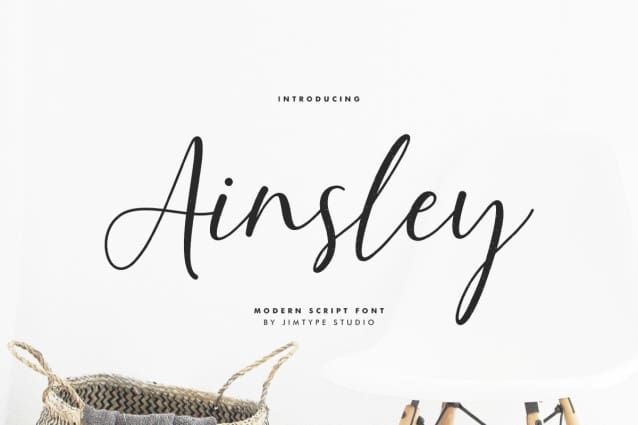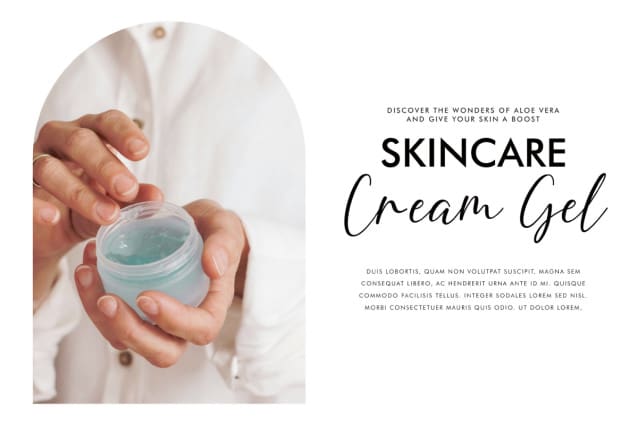
Ainsley Script Font
Ainsley Script Font, a timeless modern script font perfect for elegant branding, invitations, watermarks, photography, and more. Designed with sophistication in mind, Ainsley elevates any project with its versatile, stylish appeal. Ideal for those who seek a touch of elegance in their designs.